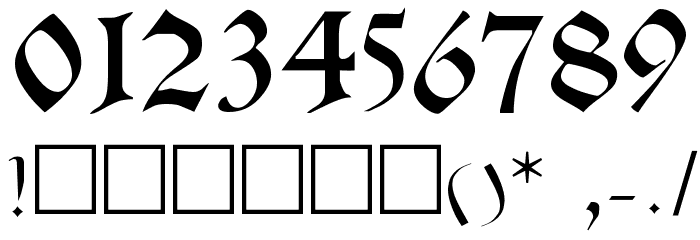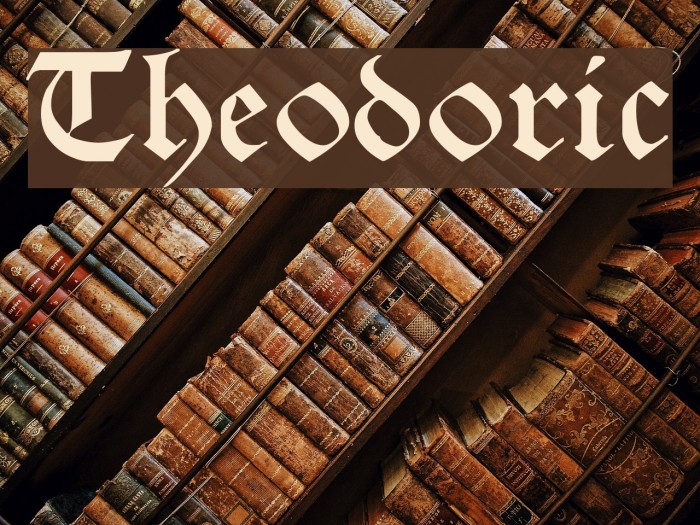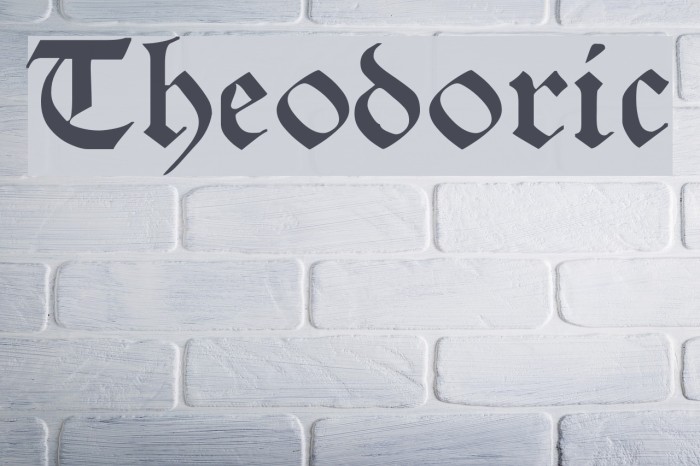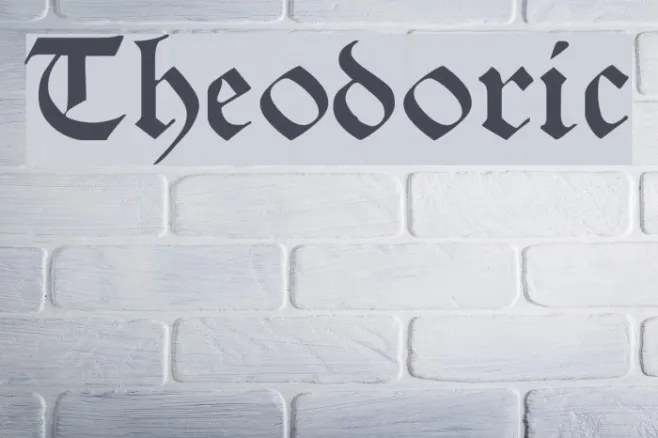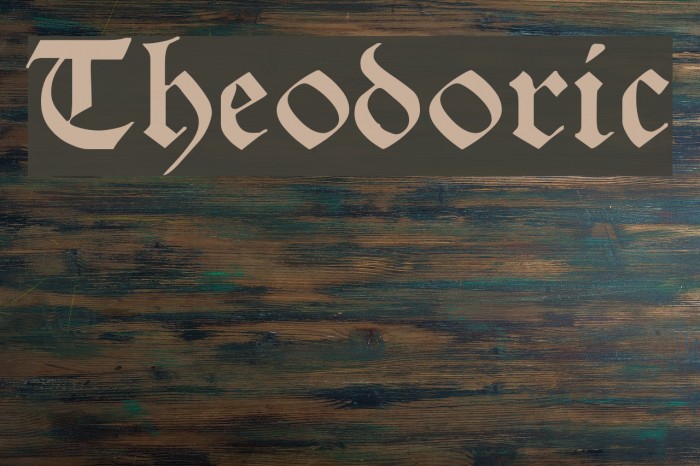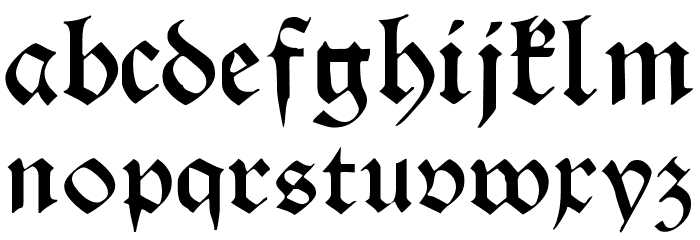
Theodoric Font
Theodoric Description
This font exhibits a classic blackletter style, characterized by its intricate and ornate letterforms. The uppercase letters are bold and angular, with sharp serifs and a distinct medieval appearance. The lowercase letters maintain the same decorative style, with a slightly more rounded form that complements the uppercase. Numerals are consistent with the overall theme, featuring strong vertical strokes and pointed edges. The special characters are designed to match the elaborate aesthetic, making this font ideal for projects that require a historical or gothic touch.
| Proposed Projects | Ideal for historical documents, gothic-themed designs, book covers, and event invitations. |